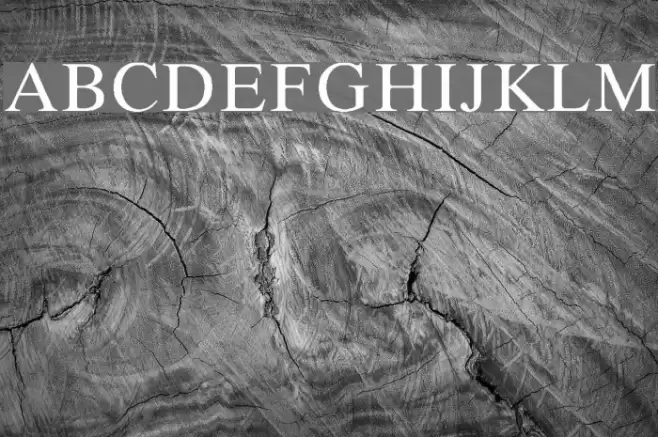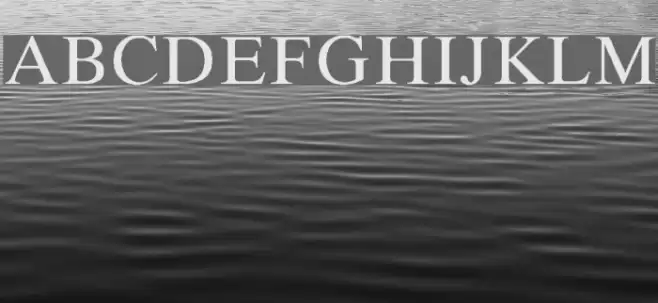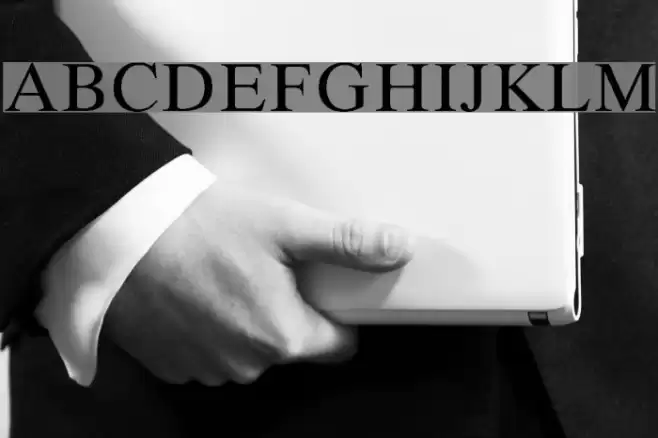
MicroTiempo-Normal Font
MicroTiempo-Normal Description
This font exhibits a classic serif style with elegant and refined strokes. The uppercase letters are well-proportioned, featuring distinct serifs that add a touch of sophistication. The lowercase letters maintain a consistent style, with smooth curves and balanced proportions. Numerals are clear and legible, making them suitable for various applications. The special characters are designed to complement the overall aesthetic, ensuring versatility in use. This font's timeless appeal makes it ideal for projects that require a traditional yet stylish look.
A classic serif font with elegant strokes and balanced proportions from Serif fonts.
- Proposed Projects: Ideal for editorial design, book covers, formal invitations, and branding materials that require a sophisticated touch.
- Overall Style: Classic
- Use Case: Headlines, Body text, Logos